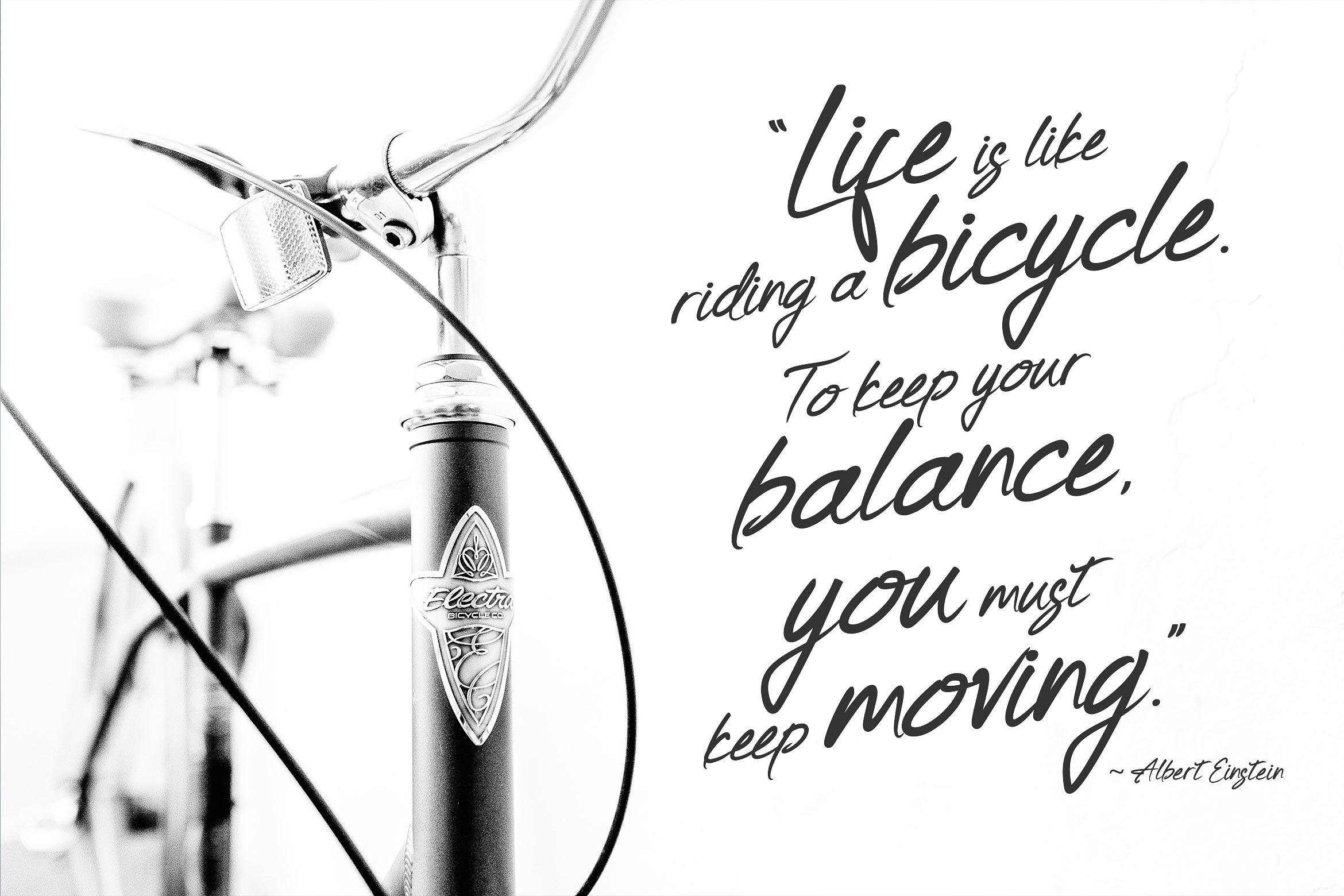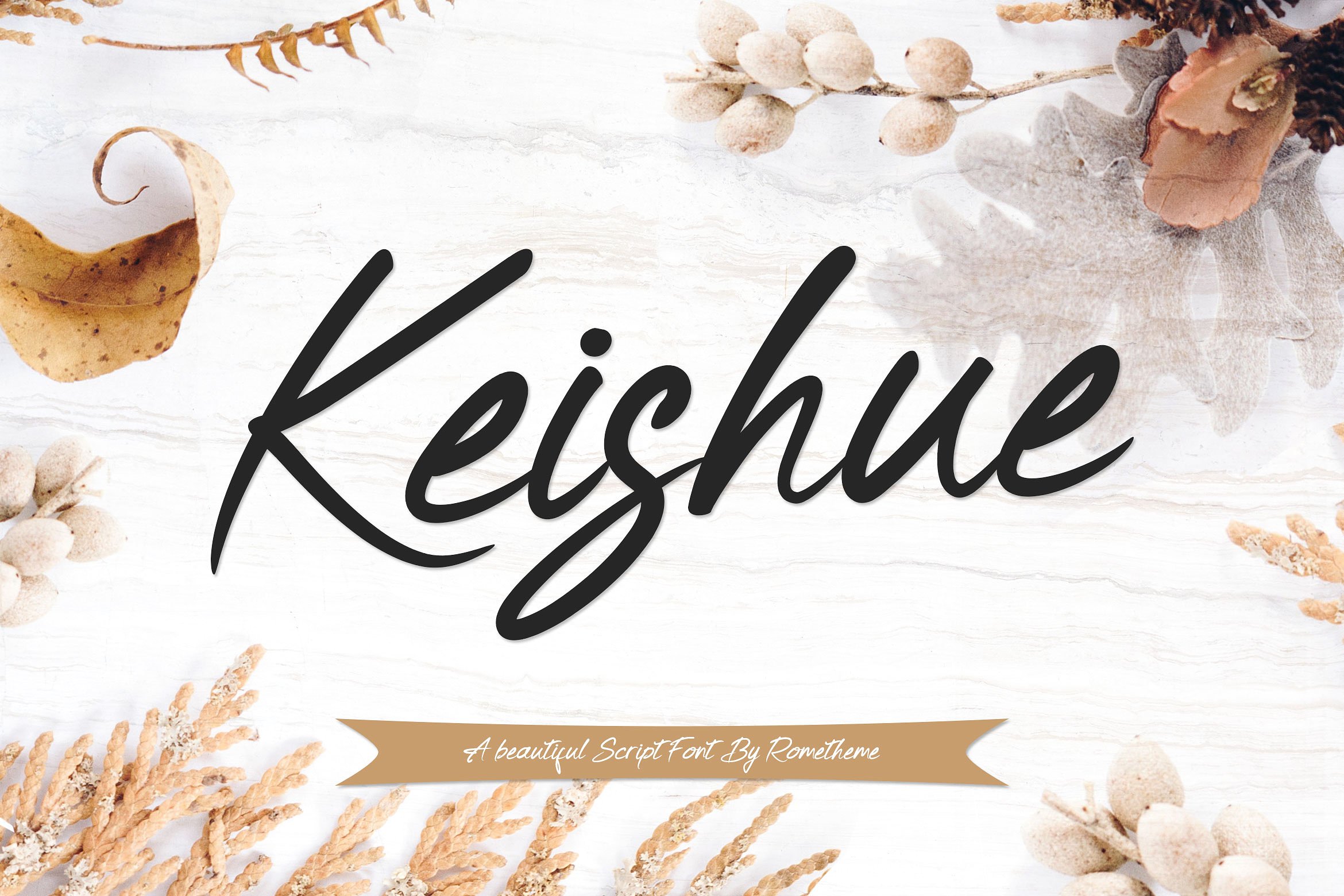
Keishue Script
Keishue Script Font
Keishue is a modern handwritten typeface, beautiful and luxurious. This elegant and beautiful font is stylish and versatile so you can use in a plethora of designs in both digital and print applications.